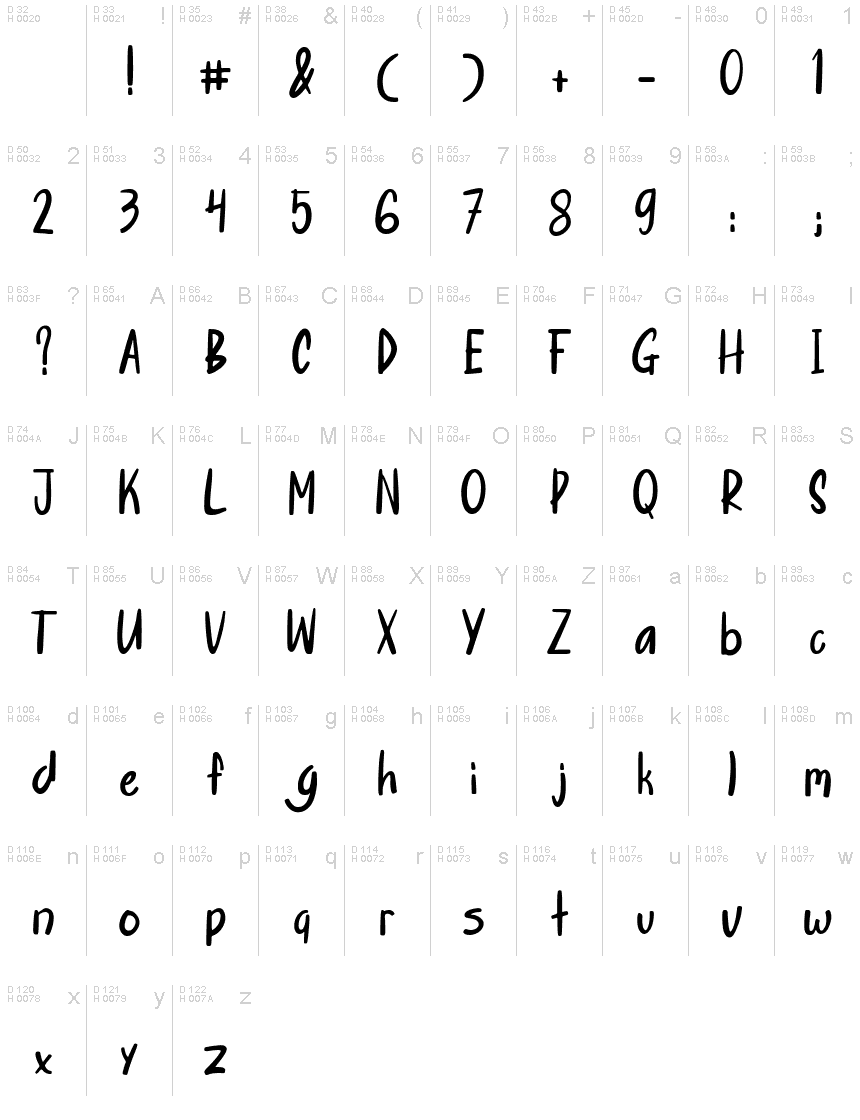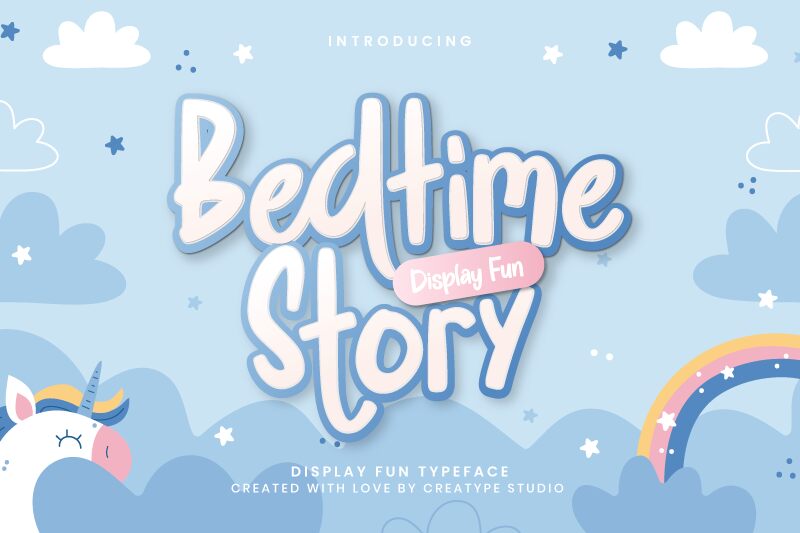
Bedtime Story Regular
Bedtime Story is a cute script font designed by Rian Rahardi. Perfect for adding a unique and personal touch to your projects, it features condensed strokes that give it an elegant, delicate feel. This charming font is ideal for creating beautiful invitations, crafting unique logos, or adding a whimsical touch to posters and flyers.